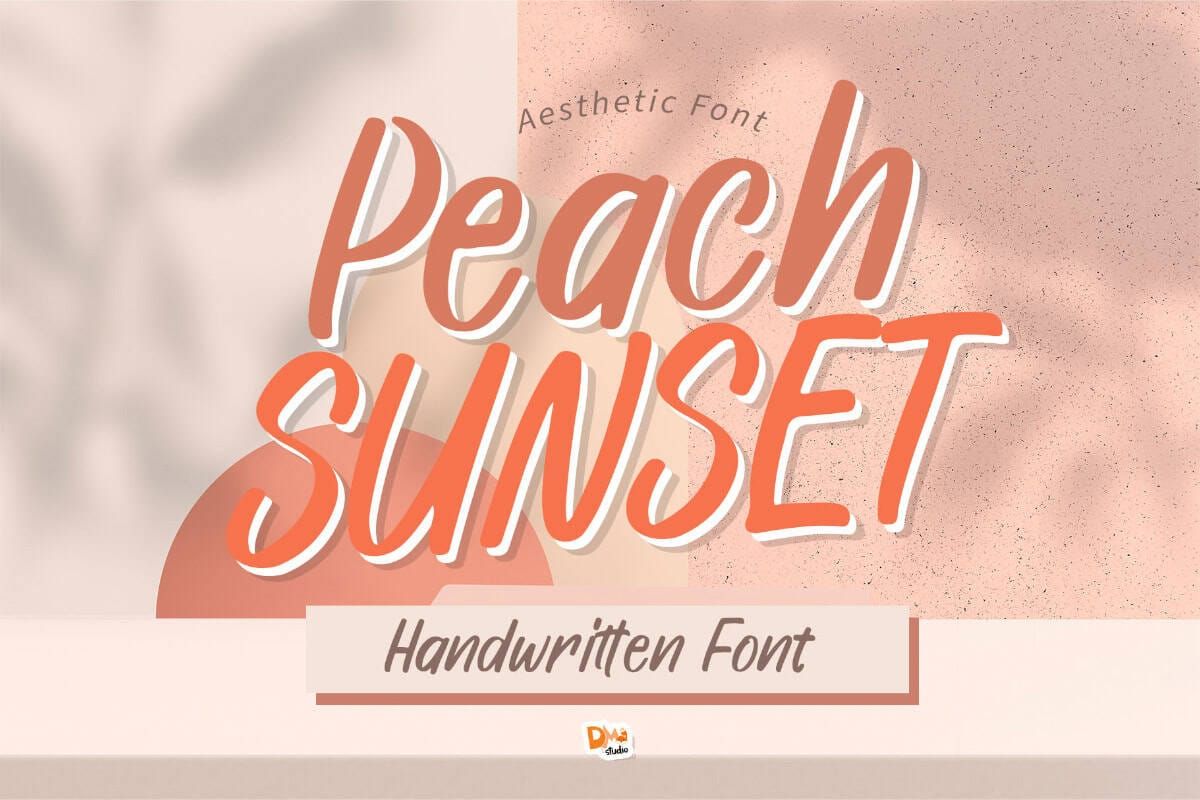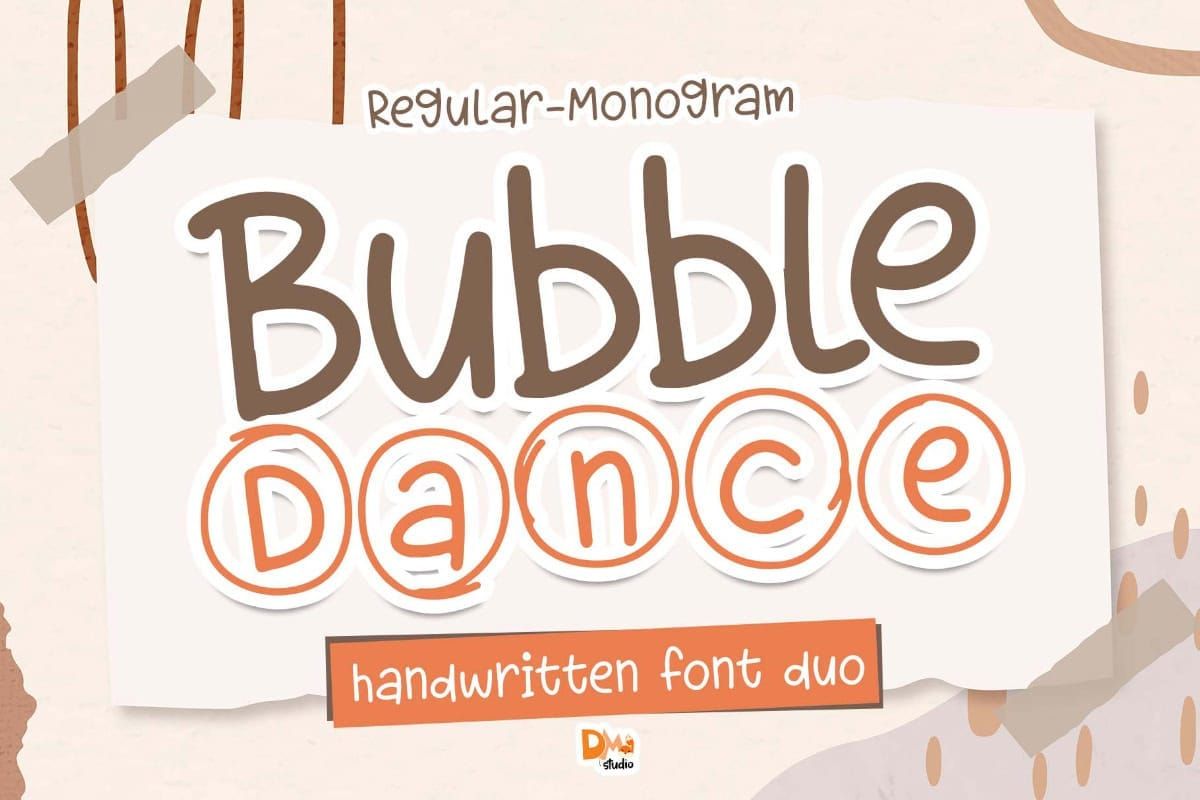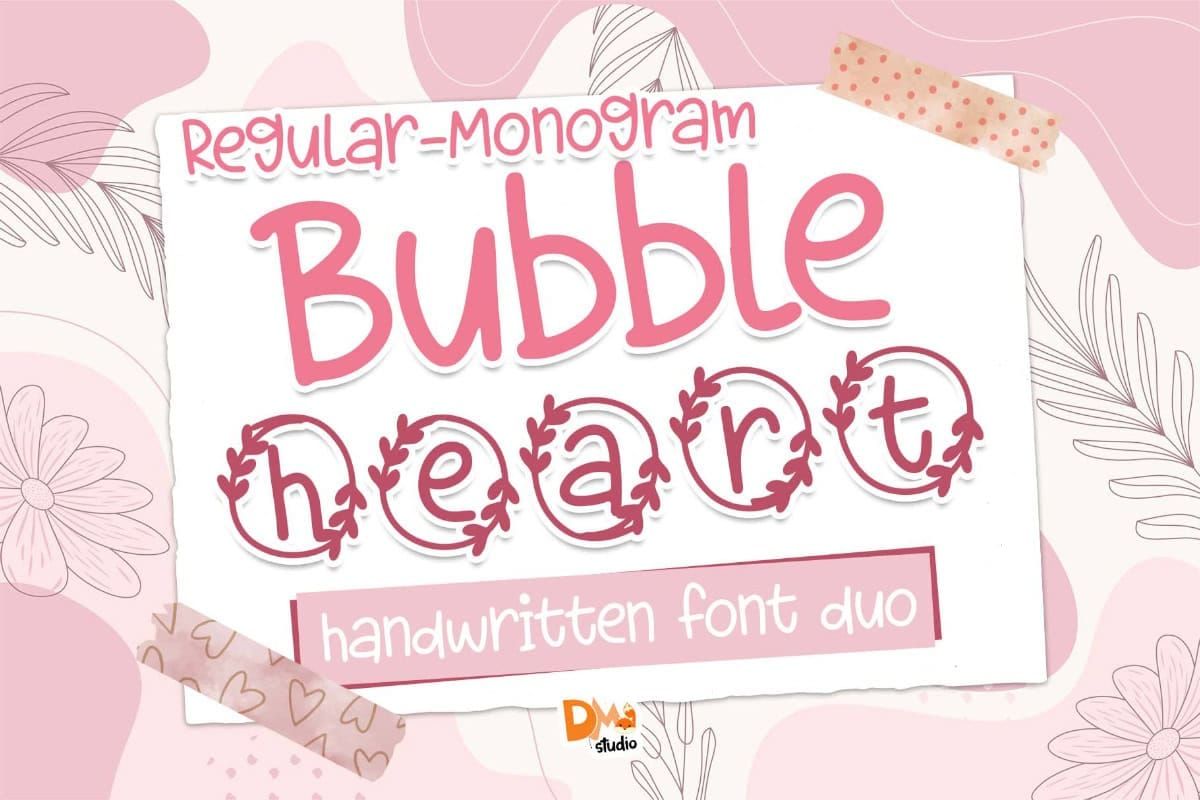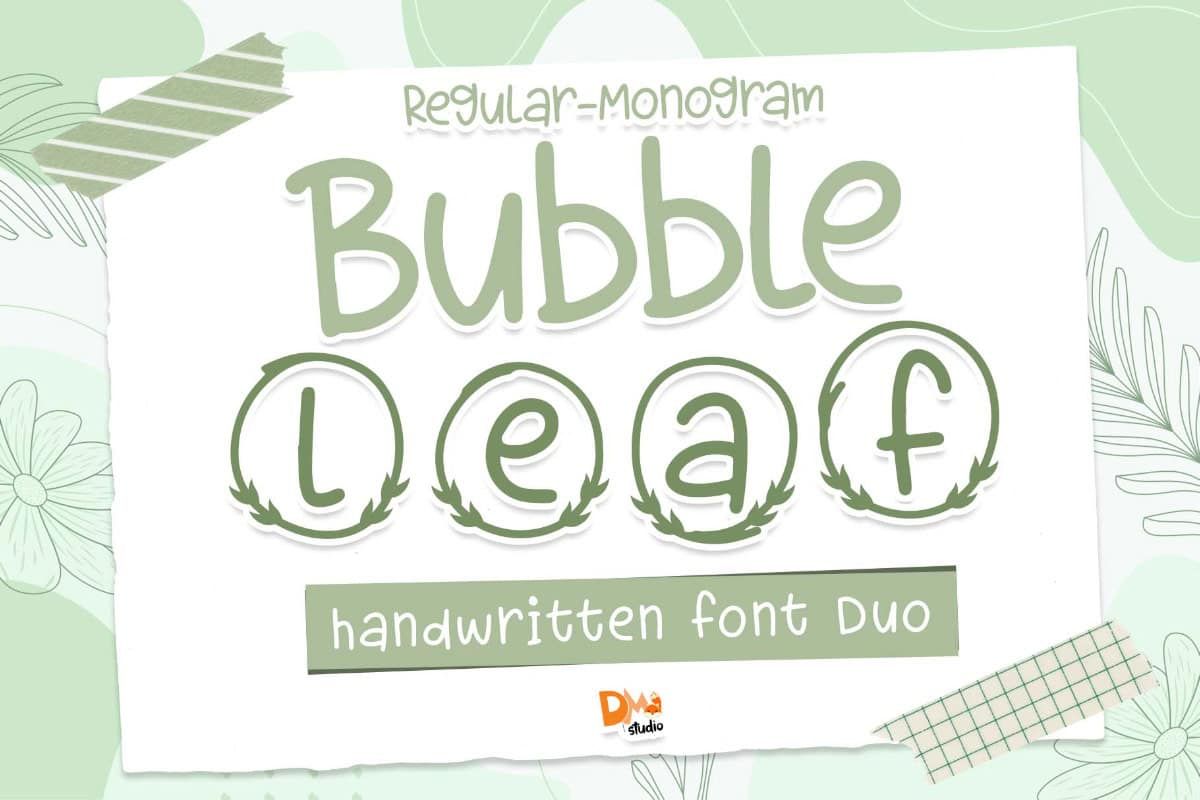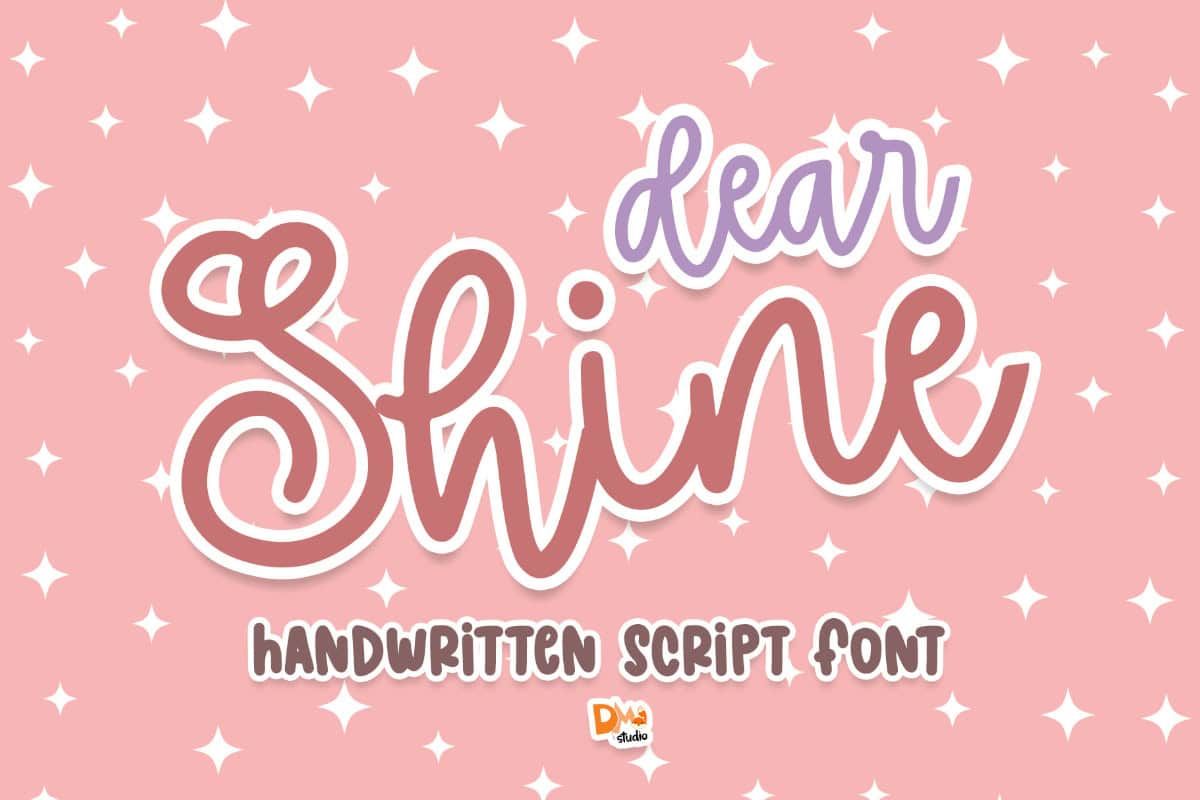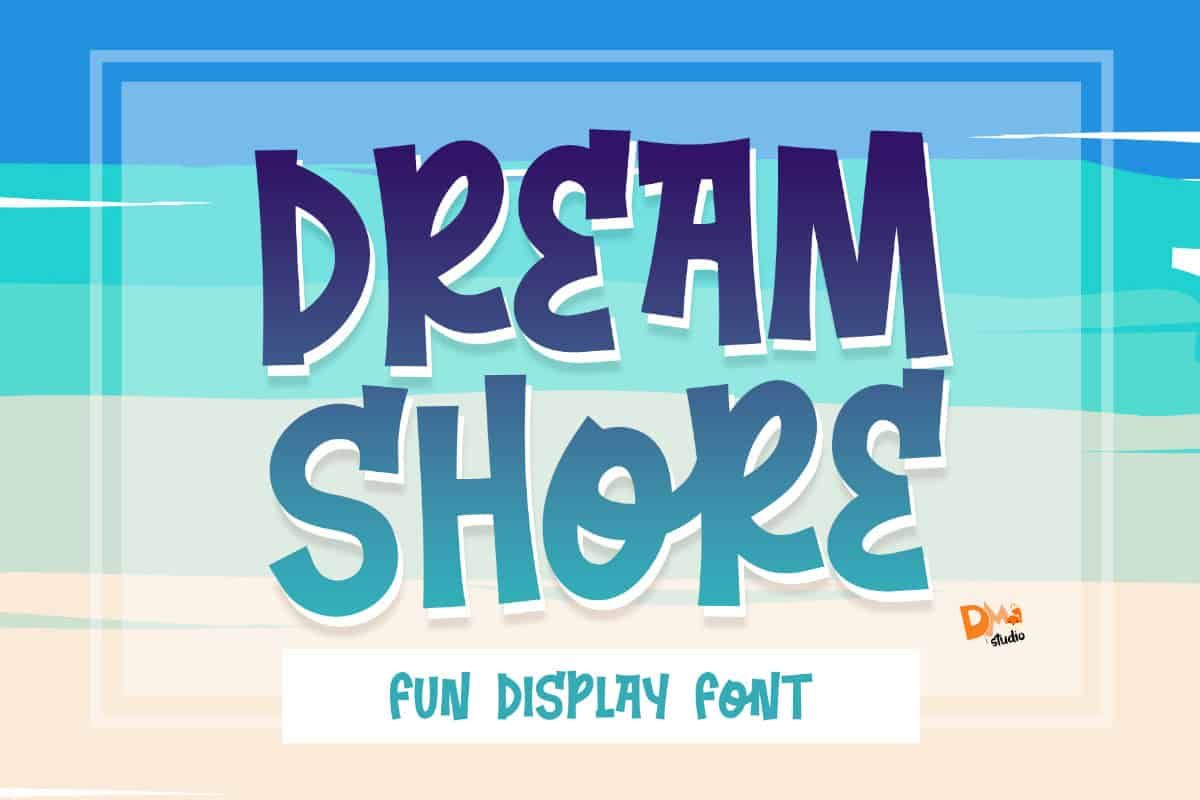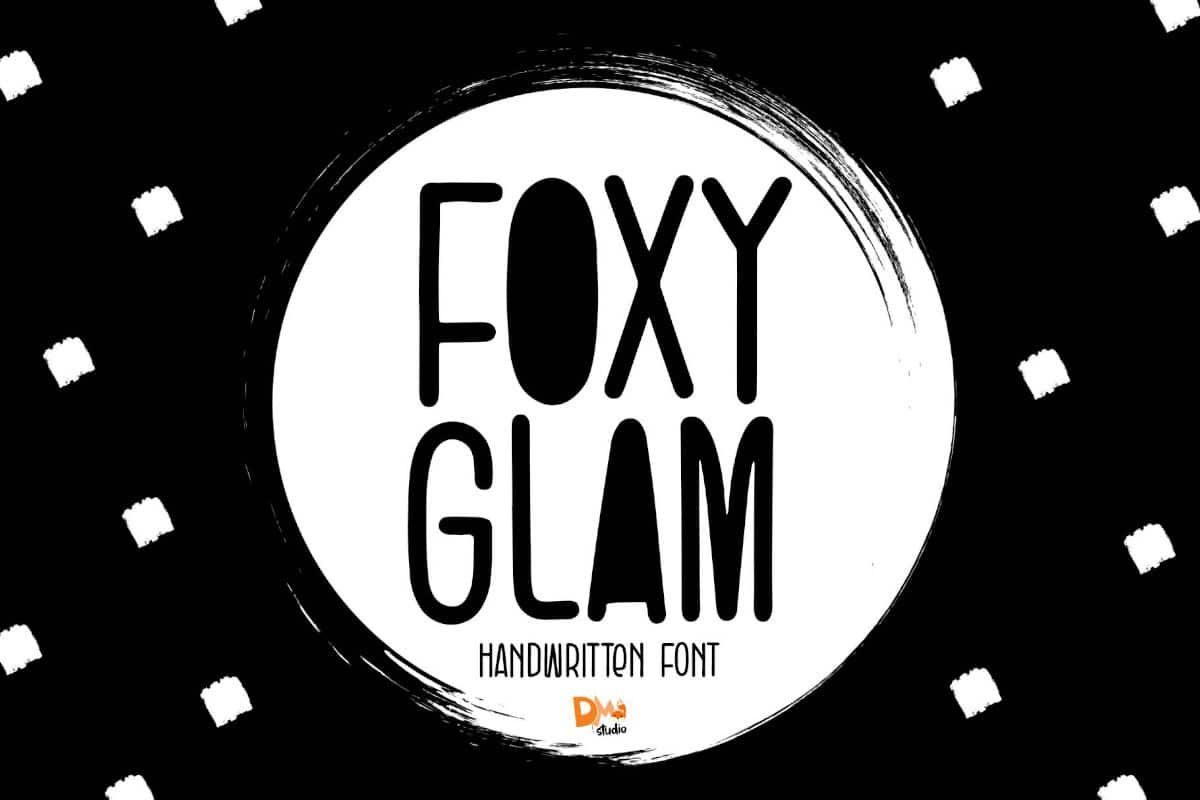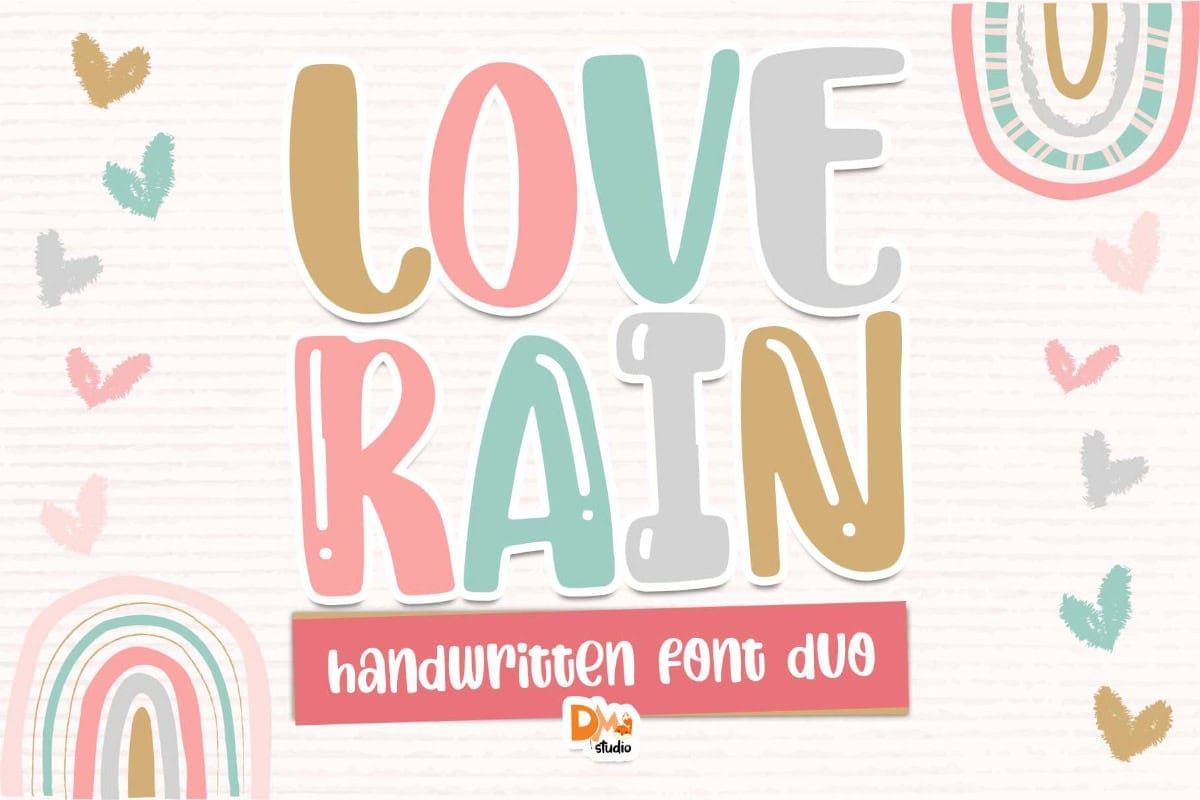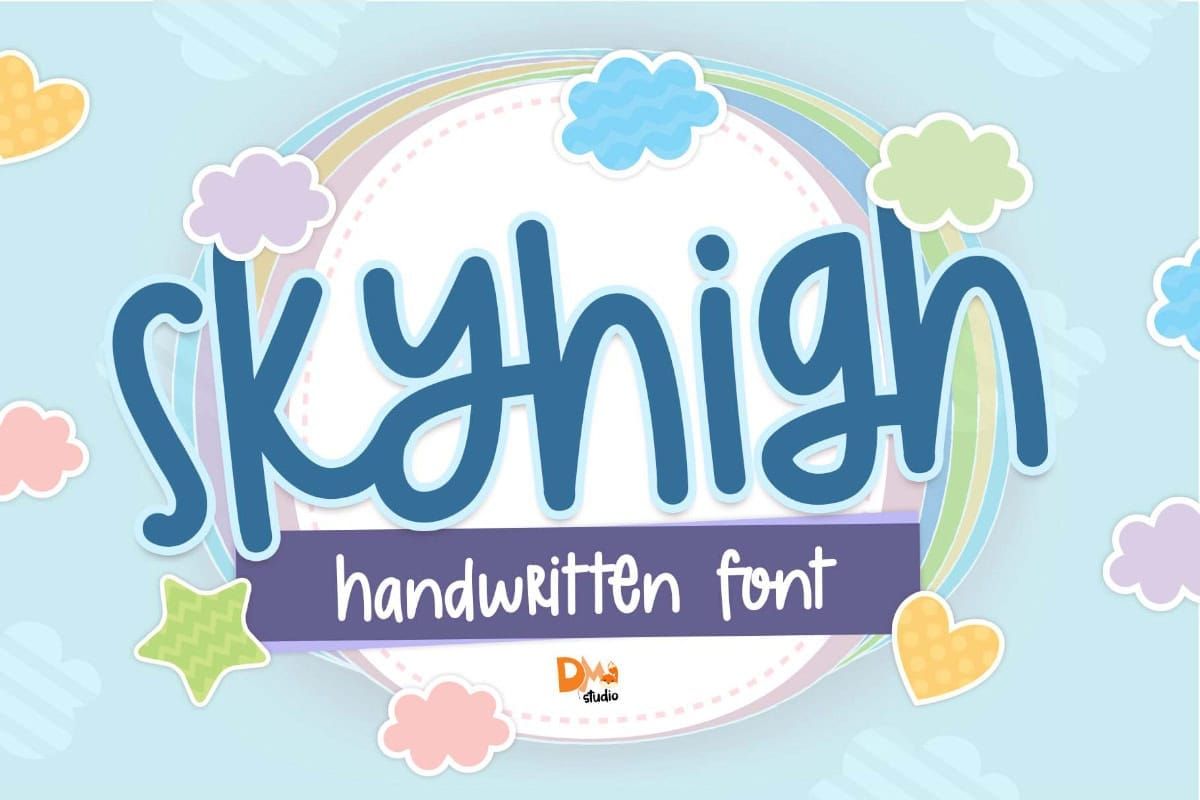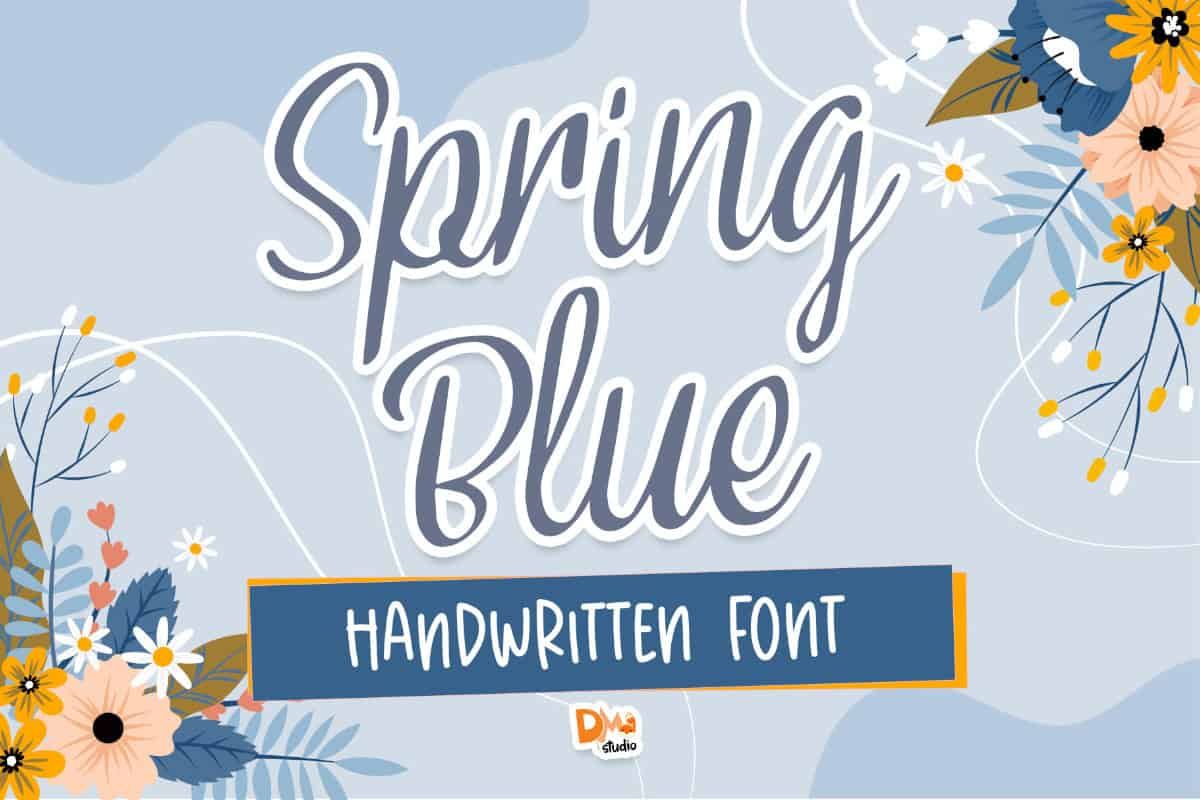
Love in Letters: 15 Fonts Similar to Always Forever
Introduction: Why Look for Fonts Similar to Always Forever?
If you’re a designer who swoons over romantic, handwritten fonts, chances are you’ve come across the Always Forever font. Known for its soft loops, smooth lines, and whimsical script style, it’s a go-to typeface for love-themed designs. But what if you need an alternative?
In this article, we’ll help you find the perfect fonts similar to Always Forever whether for wedding invitations, logo design, or dreamy social media posts. Not only that, we’ll show you how to pair them beautifully using our curated picks like Peach Sunset, Bubble Dance, and Spring Blue all from the aesthetic-inspired collection shown in the image above.
15 Fonts Similar to Always Forever (with Font Pairings)
Here’s a full list of font duos that give off the same romantic and elegant vibe as Always Forever.
1. Love Rain + Spring Blue
• Why it works: Love Rain captures the playful loops and elegance of Always Forever. Spring Blue balances with a lighter handwritten feel.
• Use case: Save-the-date cards, bridal blogs, romantic journals.
2. Bubble Dance + Bubble Leaf
• Why it works: Bubble Dance reflects a bubbly, joyful script. Paired with Bubble Leaf, it brings freshness to every layout.
• Use case: Logo design, baby products, Etsy shop headers.
3. Peach Sunset + Sweet Toffee
• Why it works: Peach Sunset has an organic, soft style that mirrors Always Forever’s handwritten warmth. Sweet Toffee adds a fun flair.
• Use case: Branding for skincare, food blogs, journaling kits.
4. Dear Shine + Playlist
• Why it works: Dear Shine has a contemporary twist with classic script lines. Playlist brings contrast with cute display charm.
• Use case: Fashion brands, lifestyle blogs, handmade goods.
5. Spring Blue + Bubble Heart
• Why it works: Spring Blue gives an honest, airy look while Bubble Heart adds playful details. Both feel sincere and light.
• Use case: Kids’ books, wedding signage, Instagram quotes.
6. Apple Crush + Warm Winter
• Why it works: Apple Crush’s handwritten roundness feels like a younger, bolder cousin to Always Forever. Warm Winter pairs with soft, snowy magic.
• Use case: Holiday cards, romantic storybooks, cozy branding.
7. Foxy Glam + Peach Sunset
• Why it works: Foxy Glam adds a retro handwritten vibe. Peach Sunset brings in soft elegance similar to Always Forever’s flow.
• Use case: Boutique packaging, vintage-style invites.
8. Bold Squad + Bubble Leaf
• Why it works: Bold Squad’s cartoon flair stands out. When softened with Bubble Leaf, it creates a cheerful balance.
• Use case: Journals, classroom decor, stationery.
9. Bubble Heart + Love Maze
• Why it works: Bubble Heart and Love Maze both share playful, loop-heavy details that mimic the Always Forever aesthetic.
• Use case: Kids’ event branding, baby shower invites.
10. Skyhigh + Spring Blue
• Why it works: Skyhigh is dreamy and fun, while Spring Blue brings sincerity and calm. This combo mimics the romantic loops of Always Forever.
• Use case: Poetic prints, wedding stationery, minimalist merch.
11. Dream Shore + Love Rain